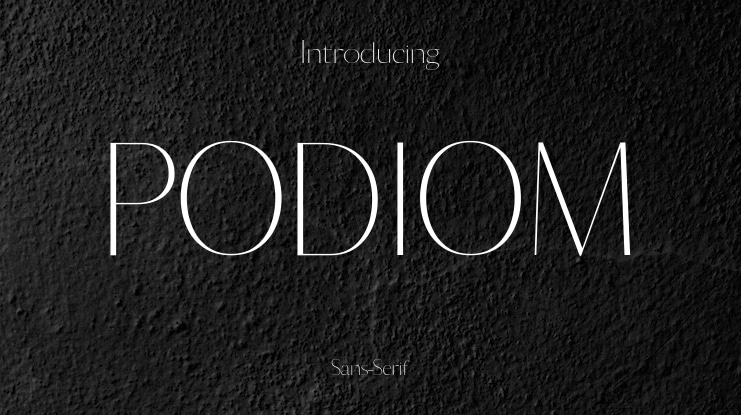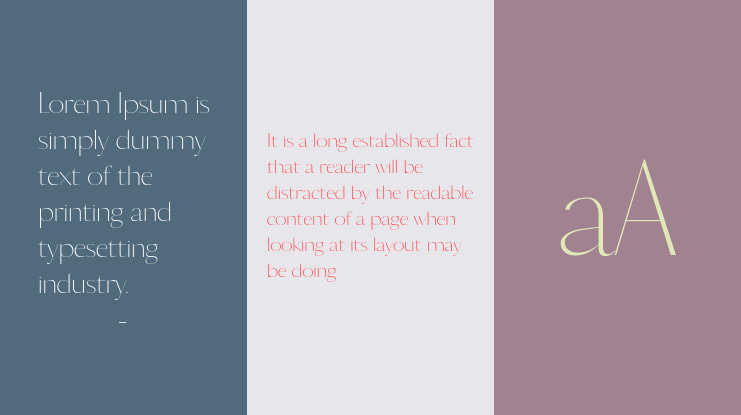
🎨 Font Name: PODIUM by Minimalist Art Studio
🎨 Font Description: PODIUM is a delicate sans serif with multilingual support and graceful structure—ideal for lifestyle branding, editorial layouts, and minimalist packaging.
✔ Complete Latin set + multilingual diacritics
✔ Alternates, stylistic sets & ligatures
✔ Numbers, small caps, and extended punctuation
✔ Bonus italics and family styles